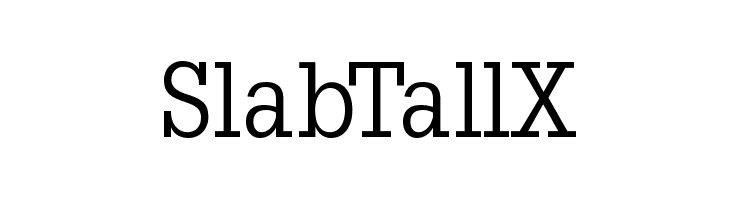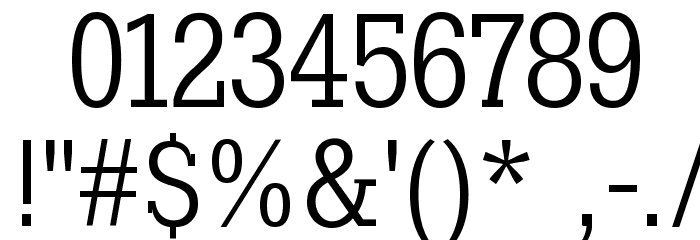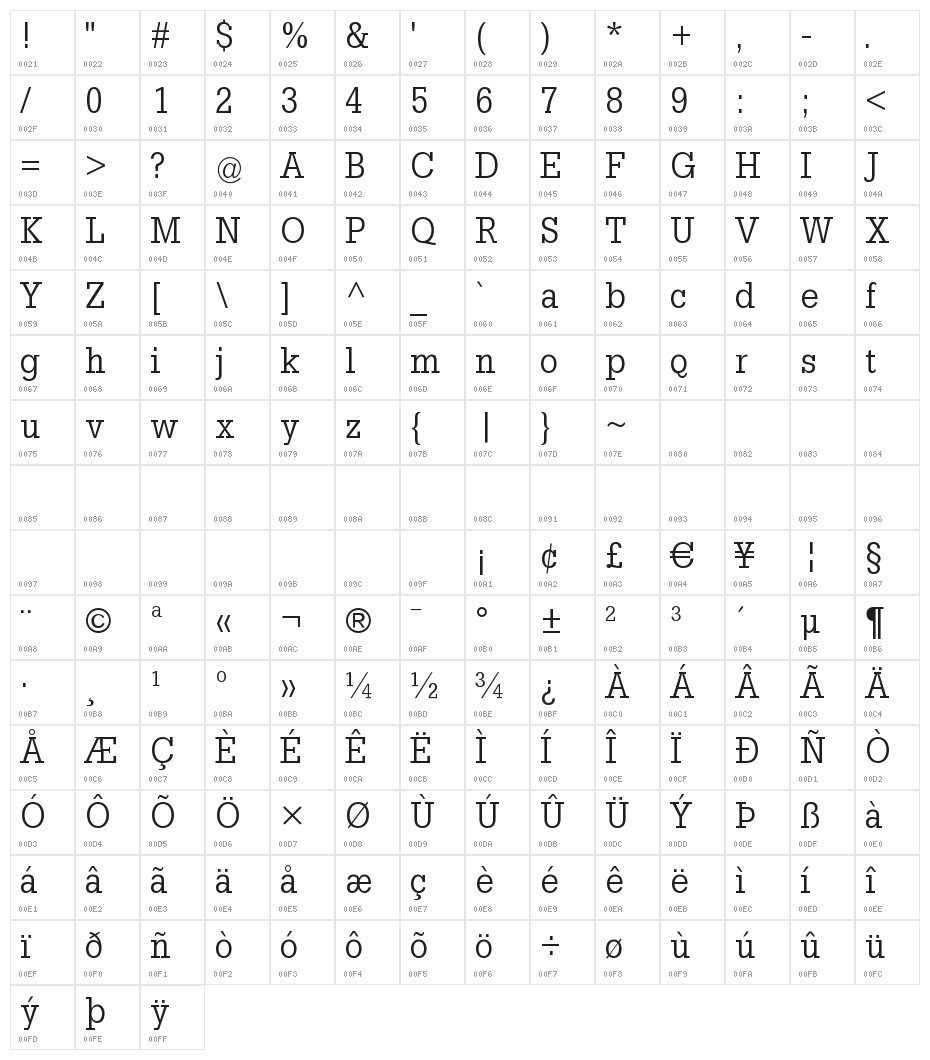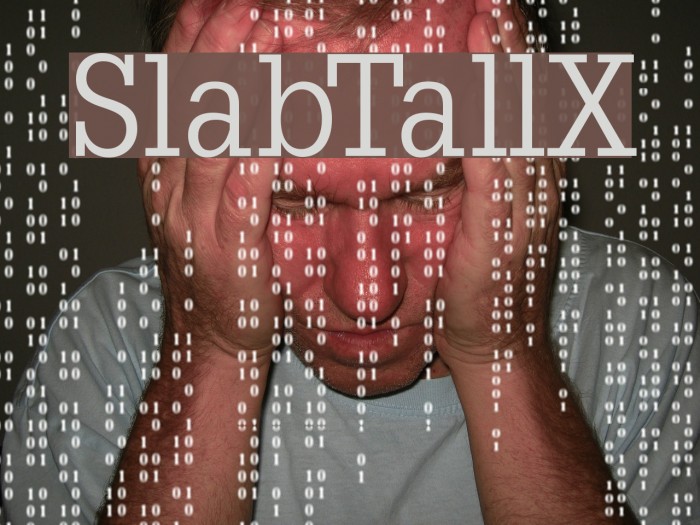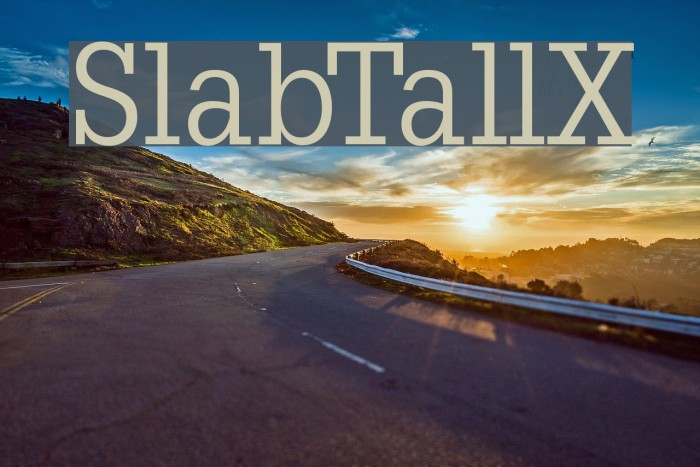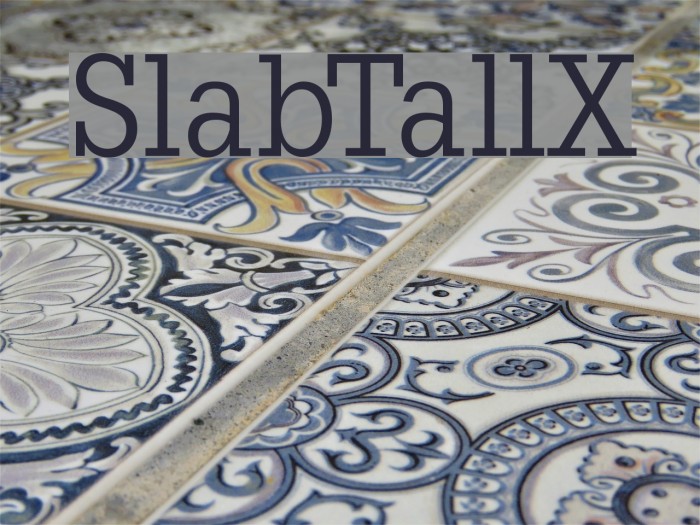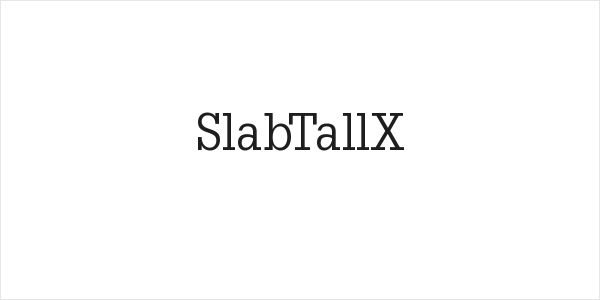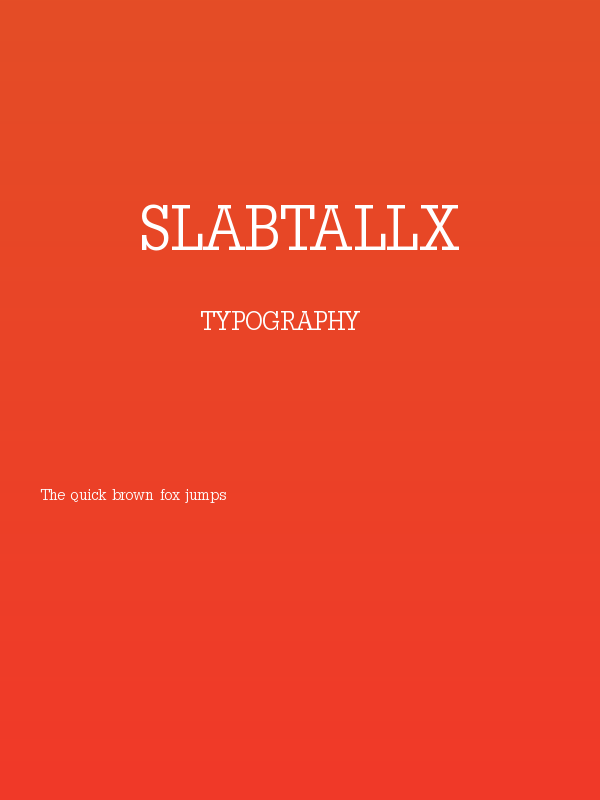
SlabTallX Font
SlabTallX Description
This font features a robust and structured design, characterized by its slab serif style. The letters are tall and have a strong presence, with thick, block-like serifs that add a sense of stability and confidence. The uppercase letters are bold and commanding, while the lowercase letters maintain a consistent weight, providing a harmonious balance. The numerals are clear and legible, making them suitable for various applications. Special characters are well-defined, enhancing the font's versatility. Overall, this font exudes a classic yet modern appeal, making it suitable for a wide range of design projects.
| Proposed Projects | Ideal for headlines, posters, branding, and editorial design where a strong, impactful font is needed. |